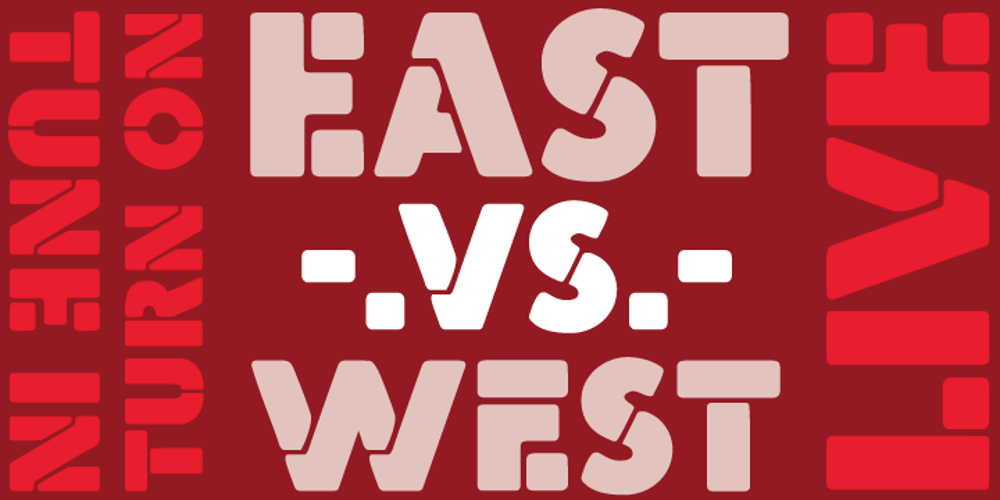
Quanta
Quanta font
Quanta Font Family was designed by Patrick Griffin and published by Canada Type. Quanta contains 4 styles and family package options. Quanta is the stencil to beat all stencils! It is the loud bullhorn, the boot camp superior, the final word, the tight team spirit, the rubber stamp that takes a chunk out of the paper. Its letters are big and strong, and its impact is unavoidable. The Quanta set is made up of two fonts, East and West, comprised of interchangeable characters. Based on yet another undigitized type spotted on a film set prop by Patrick Griffin, Quanta’s functionality is quite versatile, and its application is quite flexible. Quanta can be either cool and minimal, subtle and transparent, or dark and heavy. Its strength and uniqueness can shape the loud definition of military-style designs, emphasize the hum of your party’s engine, direct the attention to the technical and mechanical nature of future worlds, or simply add a rugged statement to a piece of clothing or equipment. This set of fonts contains a very expanded character set that includes full support for Central, Eastern and Western European languages, as well as Baltic, Turkish, Esperanto, Greek, Cyrillic and Vietnamese.